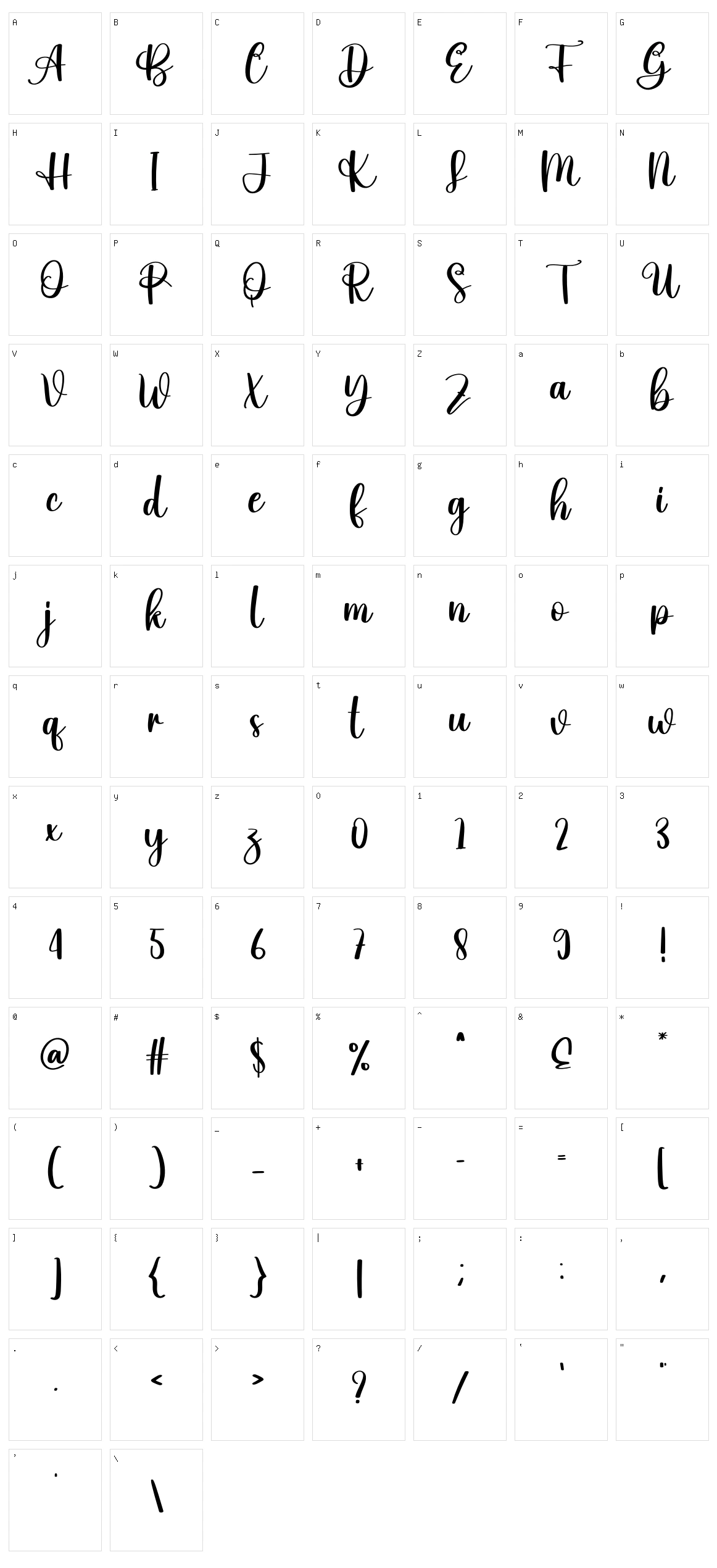
The free font Love December is carefully designed by Scratchones, showcasing a thoughtful balance of creativity and usability and falls under the Script font style. When you download the ZIP file, it contains only 88.24 KB of font files, making it lightweight and quick to download. Please review the license details below to understand permitted usage and distribution rights. If license information is not available, we recommend using this font for personal projects only or contacting the author directly for commercial usage permissions.